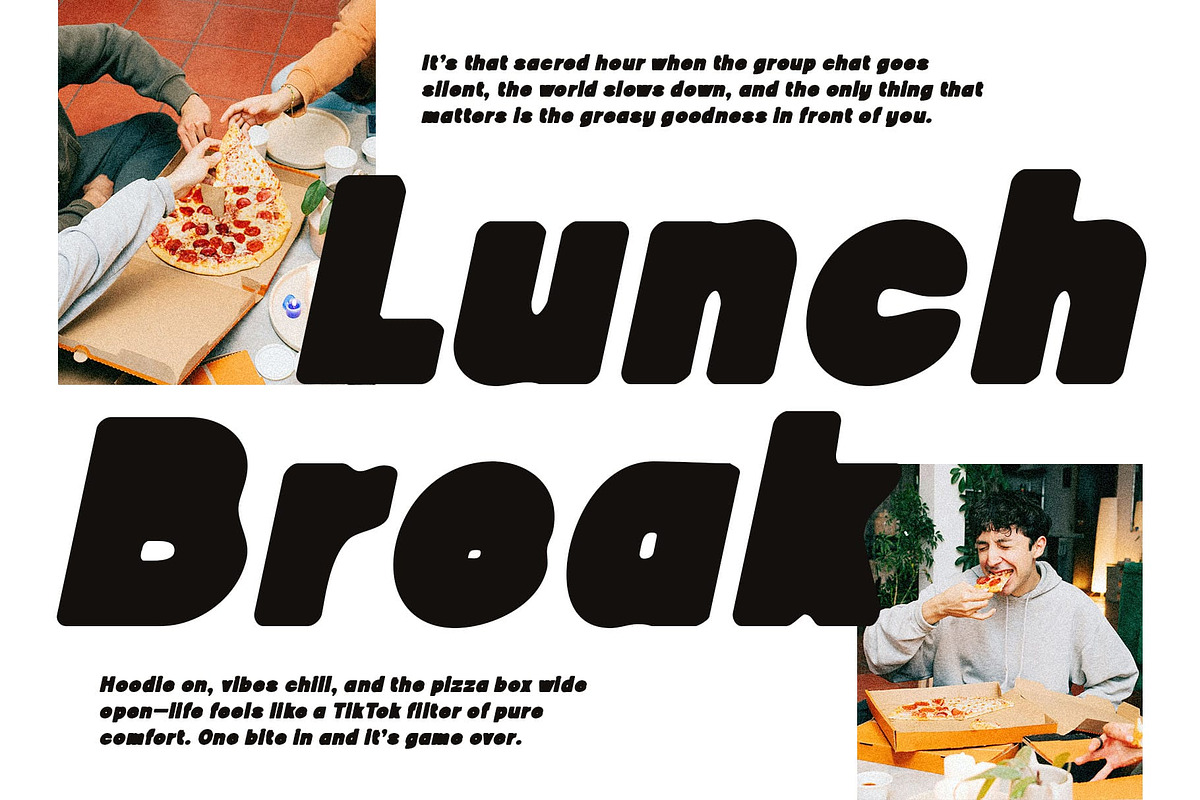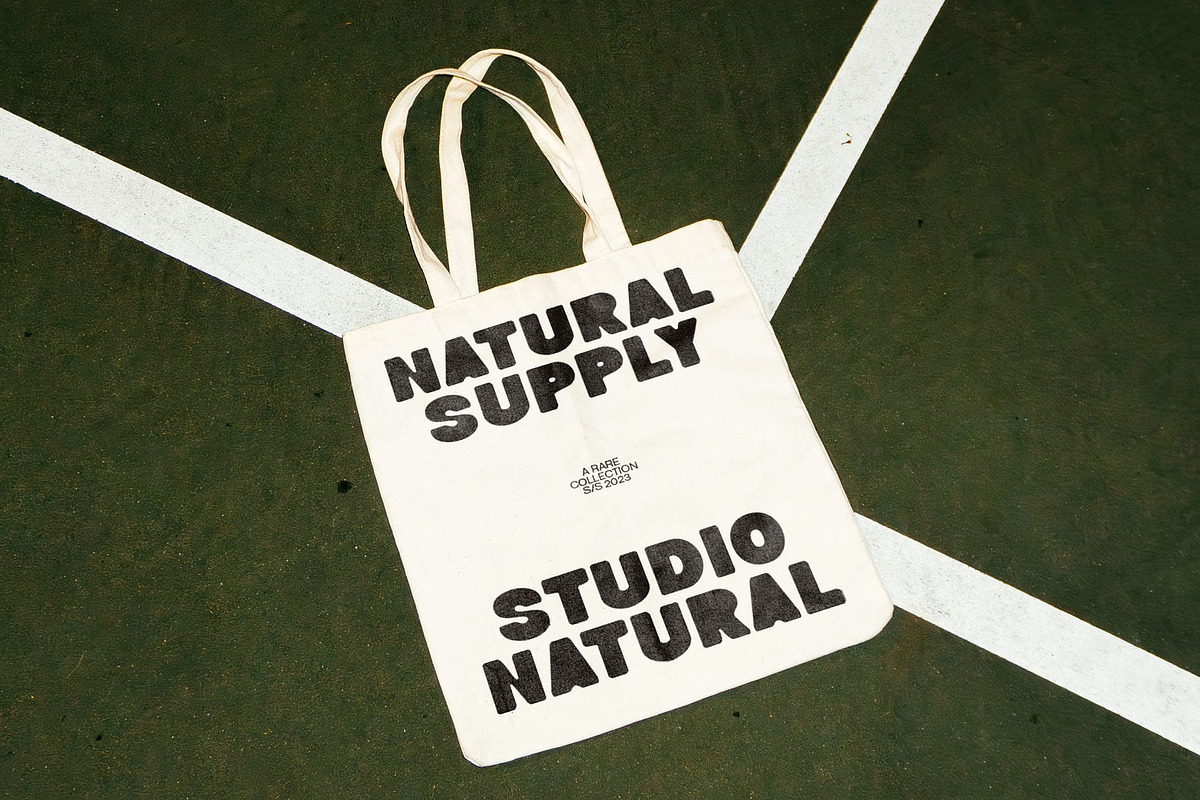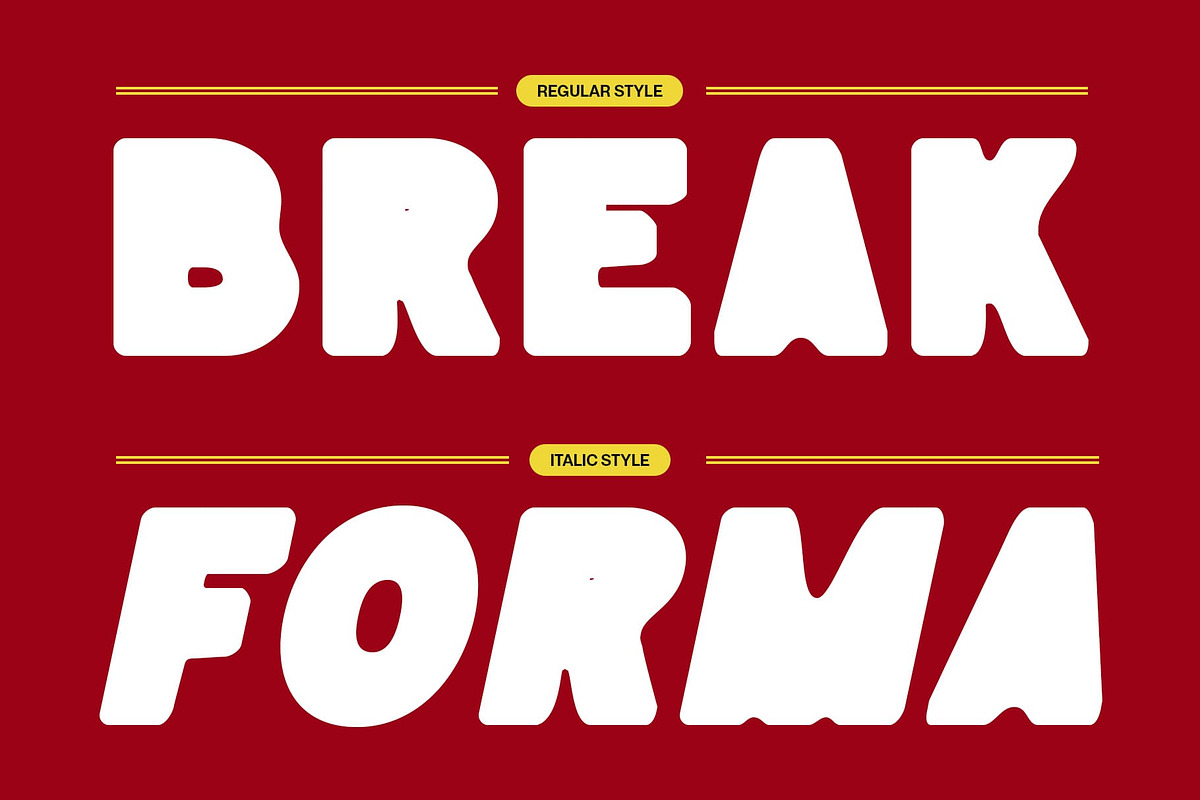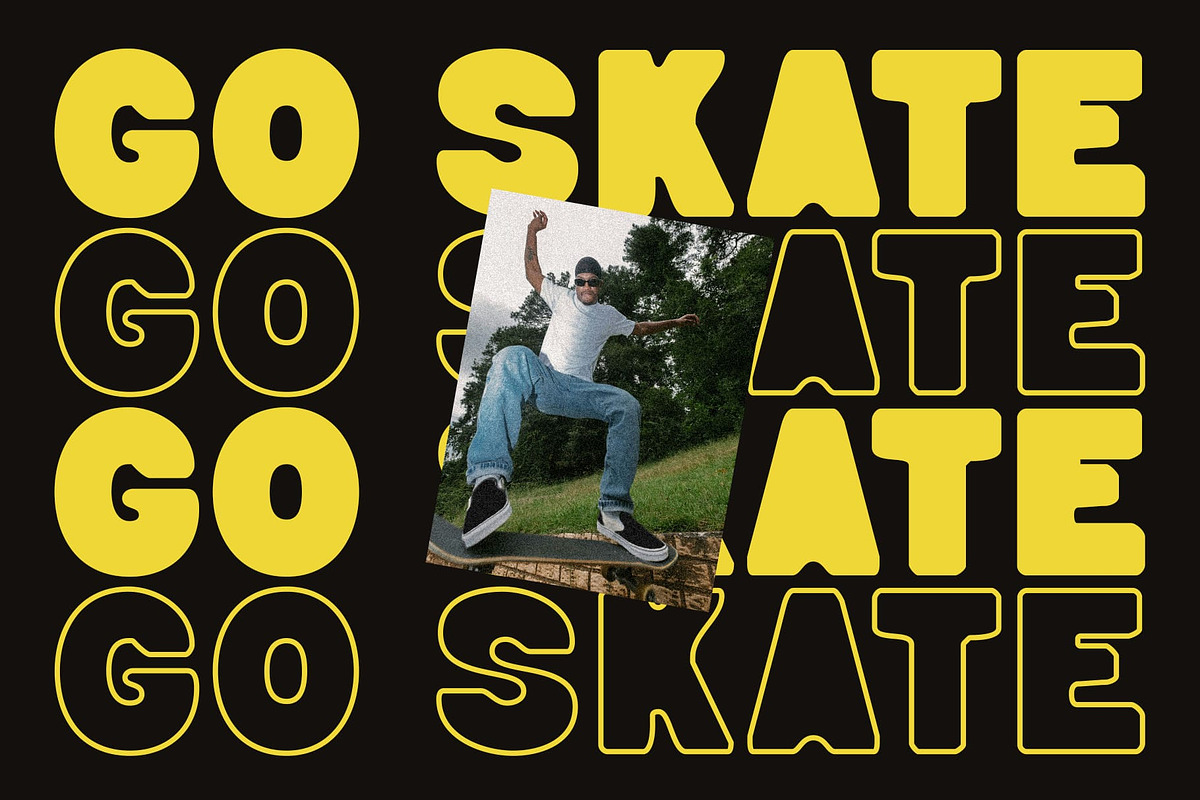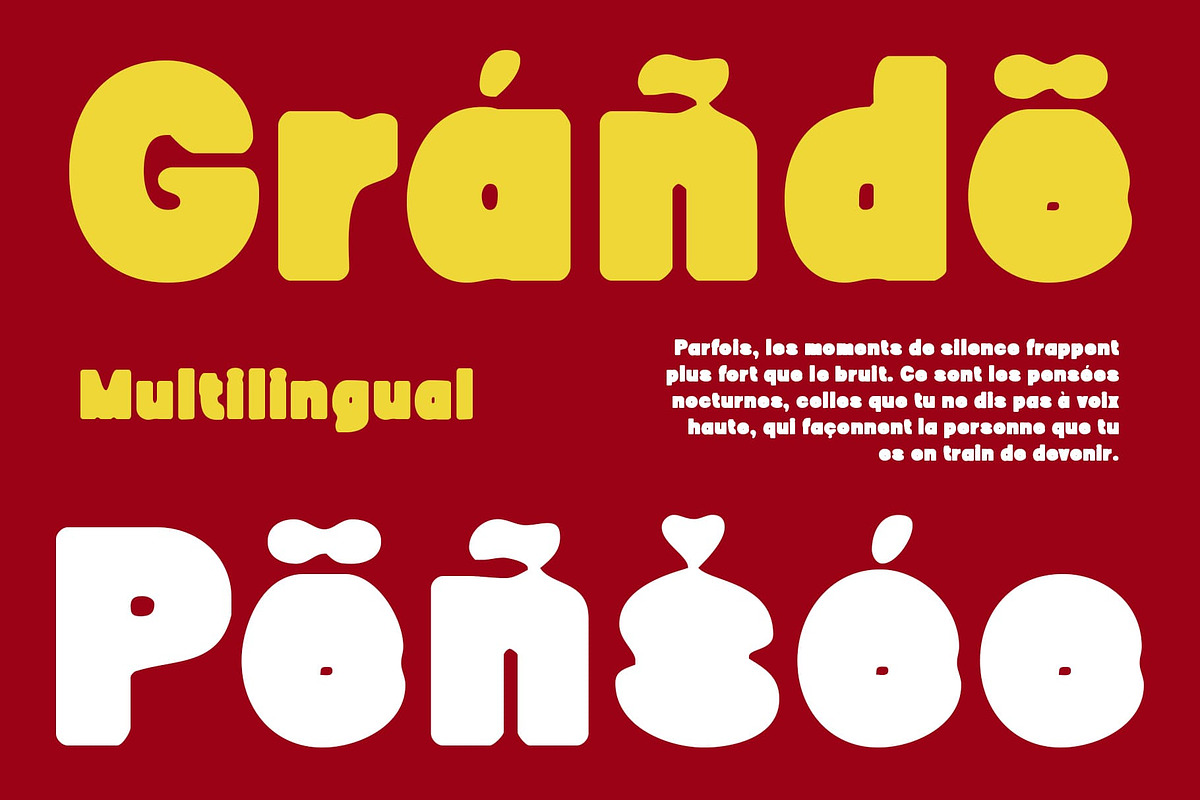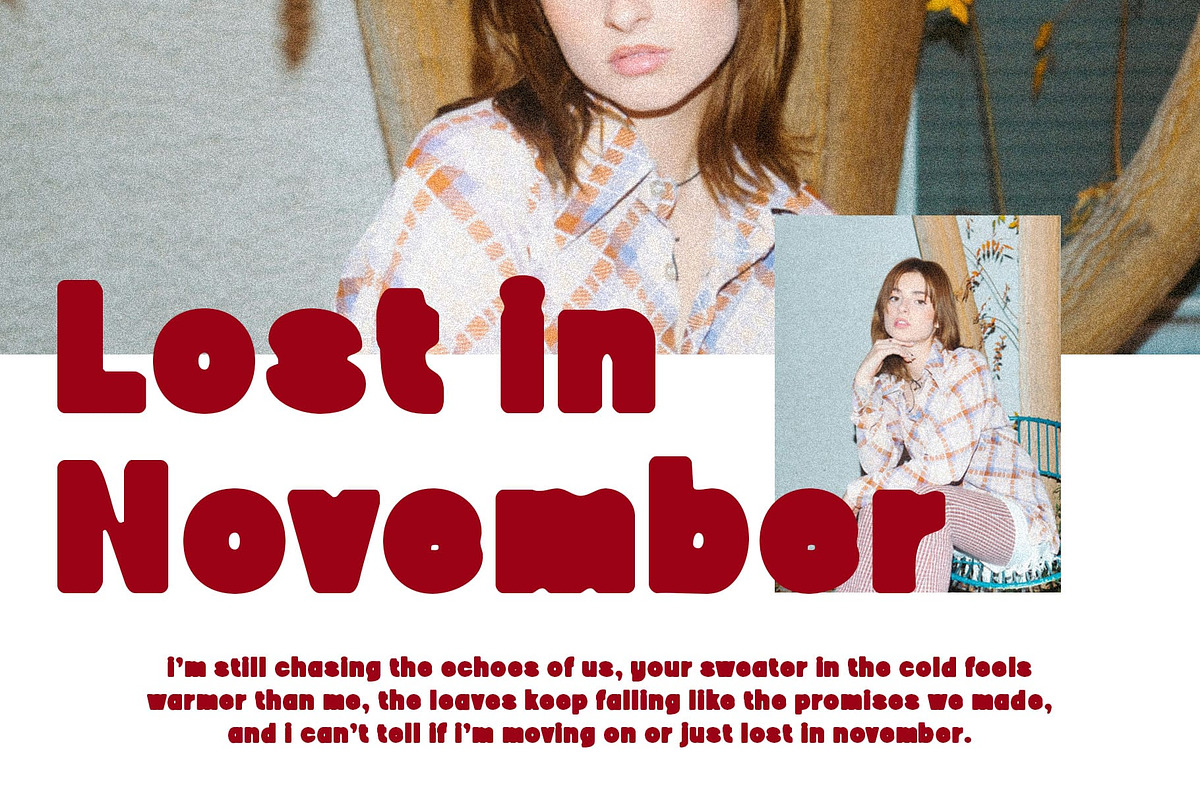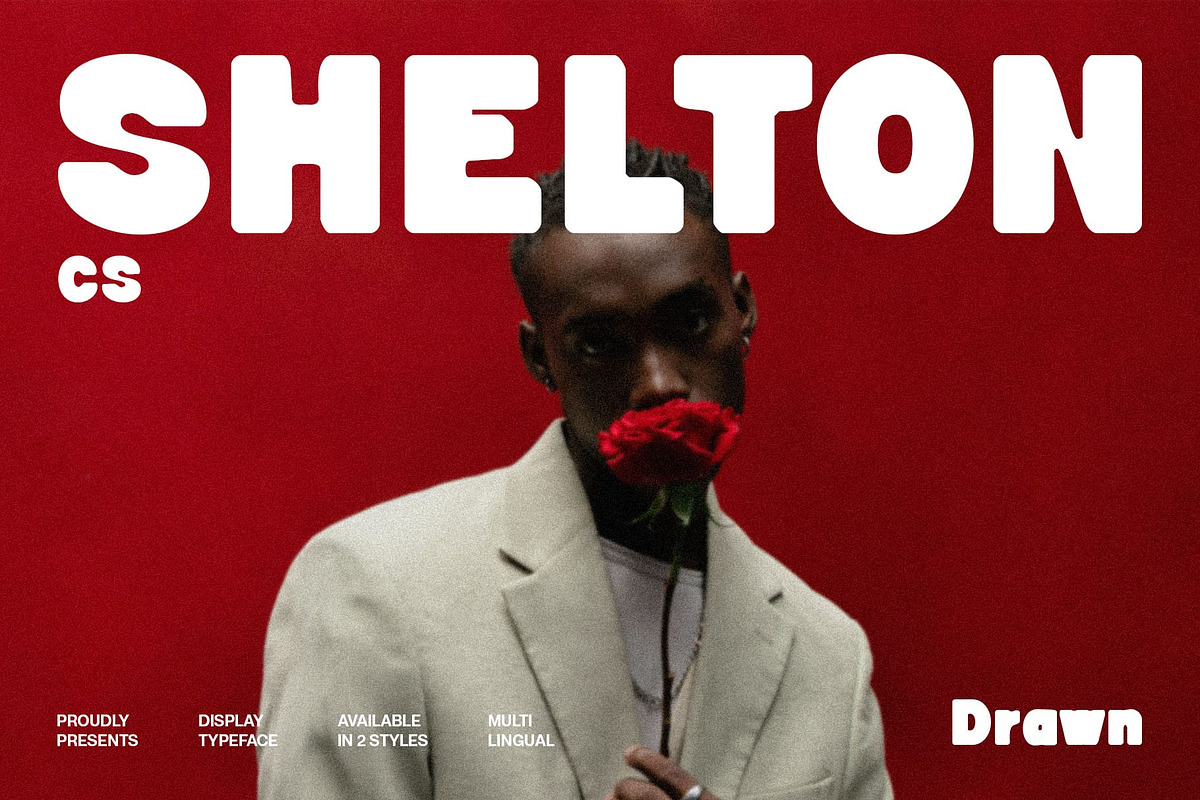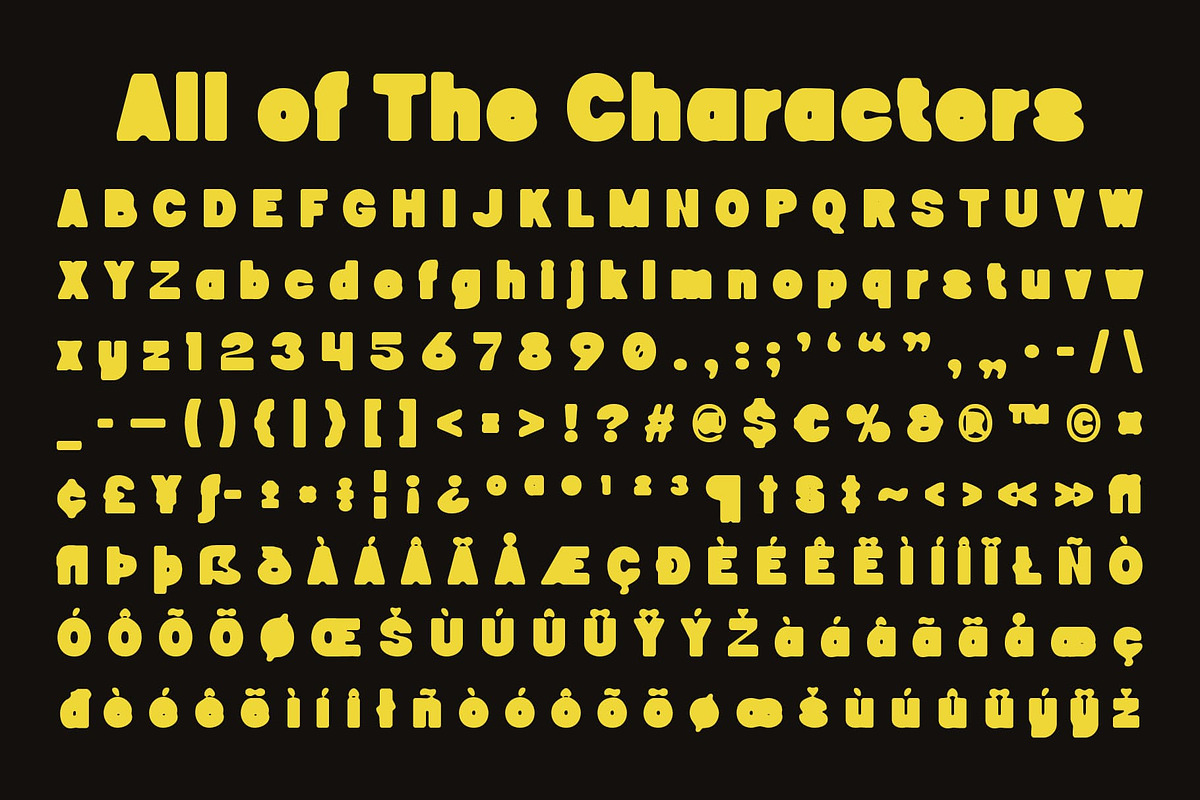
CS Shelton Drawn
CS Shelton Drawn – Bold Sans Serif with Handcrafted Stamp Texture and Drawn Finish
Rugged and Expressive CS Shelton Drawn is a bold sans serif font that carries a rugged, handmade personality. Its design combines strong sans serif foundations with a playful, stamp-like quality, making it both commanding and approachable. The drawn texture enhances its expressive nature, giving each character a handcrafted edge.
Stamp-Inspired Style With its uneven finish and textured strokes, CS Shelton Drawn evokes the look of stamped or hand-pressed lettering. This detail adds charm and individuality, creating a tactile impression that feels authentic and full of character. It’s a style that stands out in modern digital contexts while evoking vintage craft.
Fun Yet Impactful Balancing boldness with a touch of playfulness, CS Shelton Drawn thrives in projects that want to be memorable without losing personality. Its rugged forms bring strength, while the drawn finish softens the tone, making it suitable for both casual and professional applications.
Perfect for Bold Branding From logos and packaging to editorial headlines and poster art, CS Shelton Drawn is designed to make an impact. Its handmade quality ensures designs feel genuine and creative, while the strong serif structure guarantees legibility and presence. For designers seeking a font that blends boldness with handcrafted charm, CS Shelton Drawn is an ideal choice.